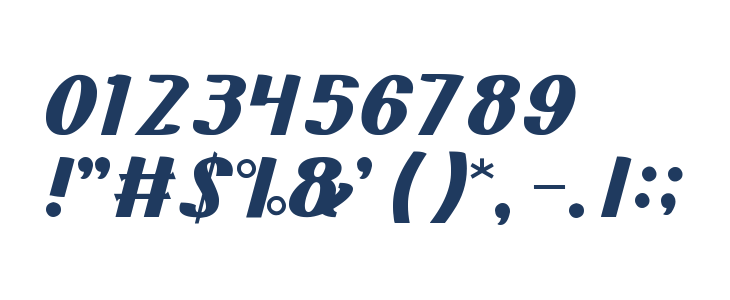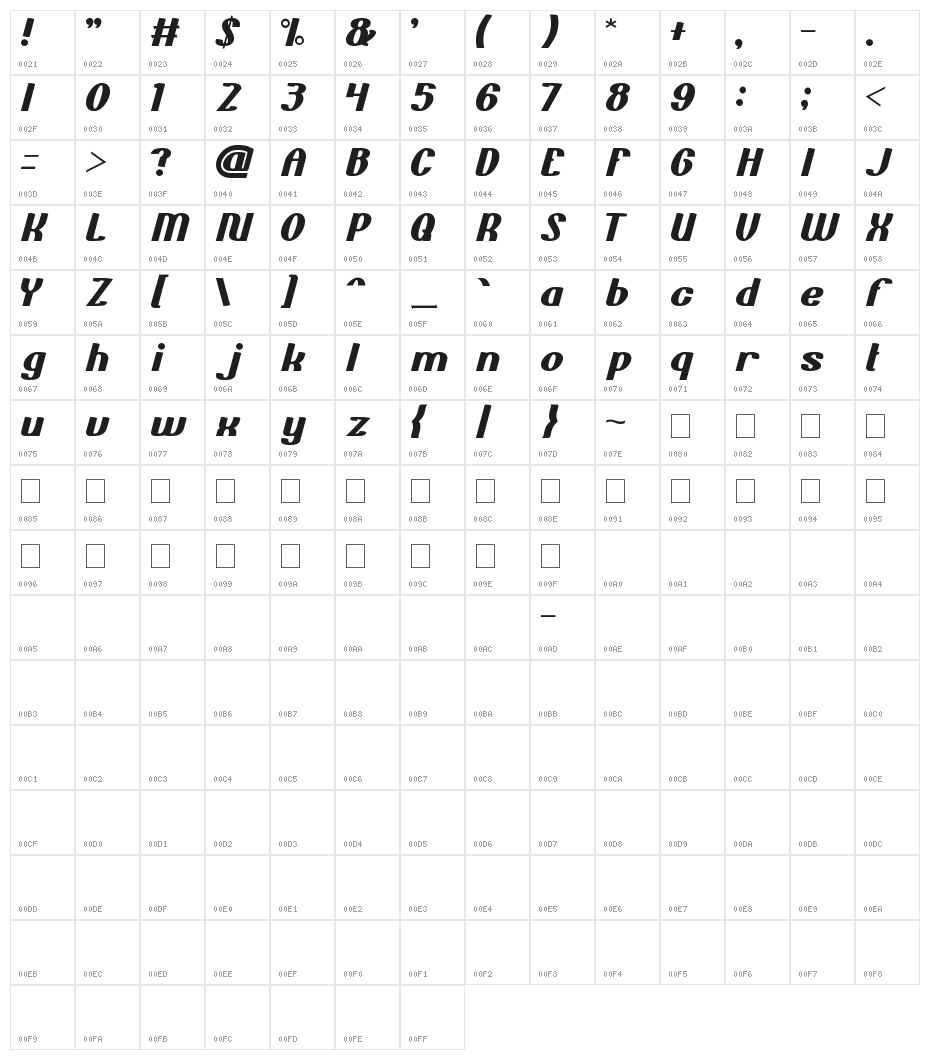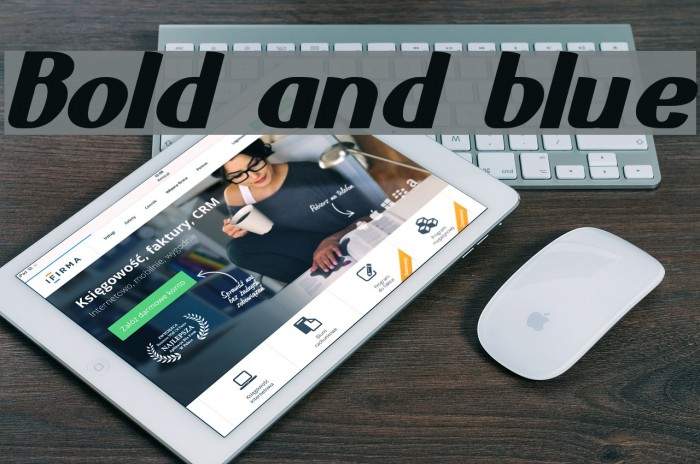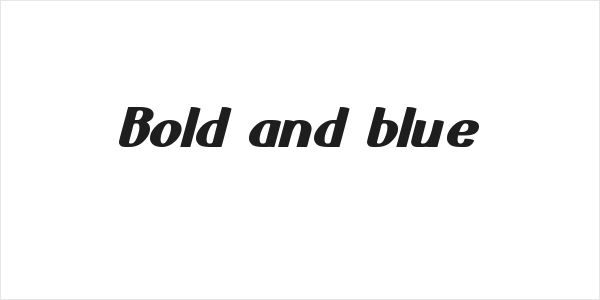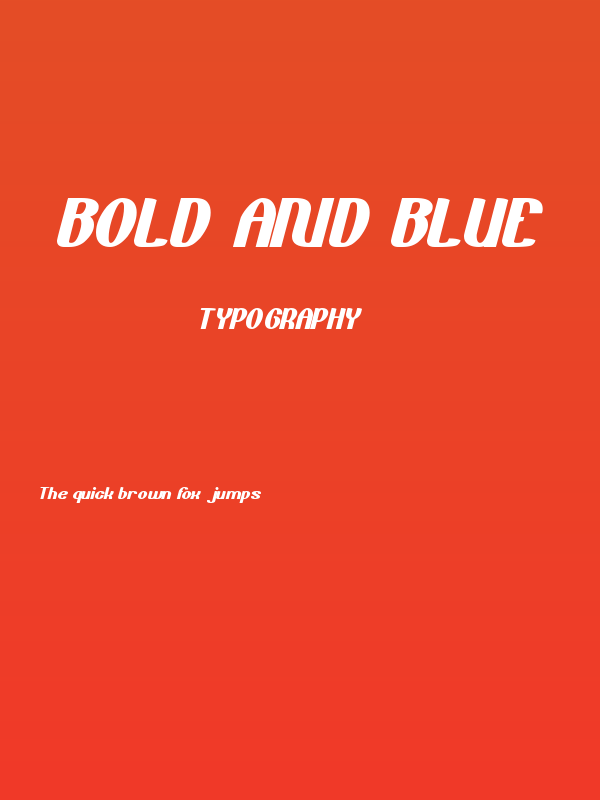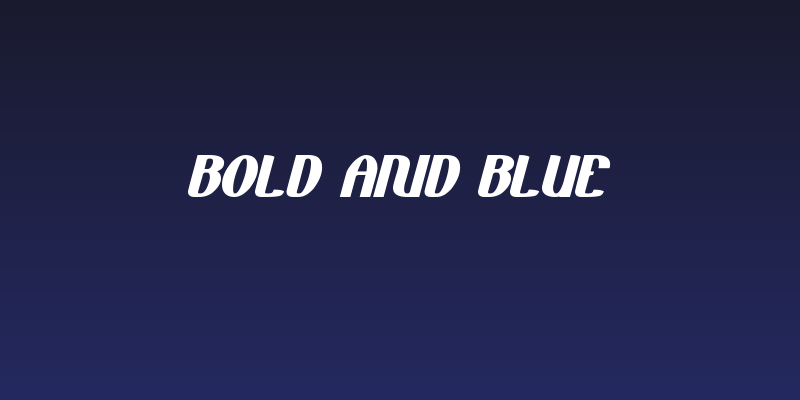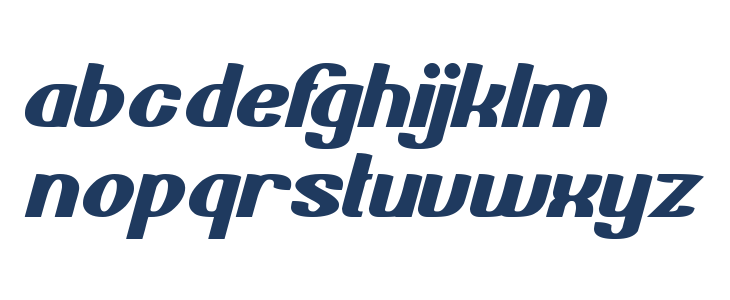
Bold and blue Font
Bold and blue Description
This font features a bold and dynamic style with a slight slant, giving it an energetic and forward-moving appearance. The characters are thick and rounded, providing a sense of strength and stability. The uppercase letters are tall and imposing, while the lowercase letters maintain a consistent flow with smooth curves. The numerals are equally bold, ensuring readability and impact. Special characters are designed to match the overall robust aesthetic, making them suitable for attention-grabbing designs. The font's unique style makes it ideal for projects that require a strong visual presence.
Proposed ProjectsIdeal for branding, headlines, posters, and advertising materials that require a strong visual impact.